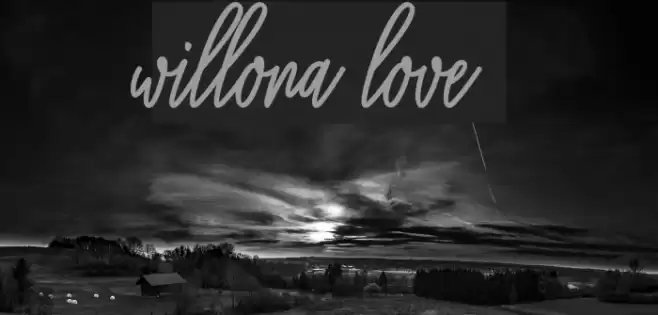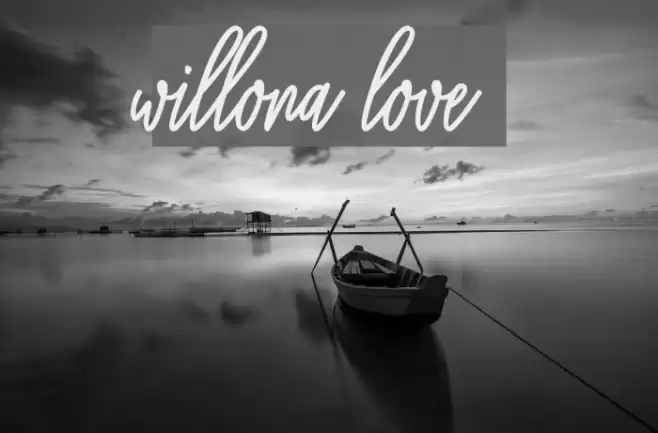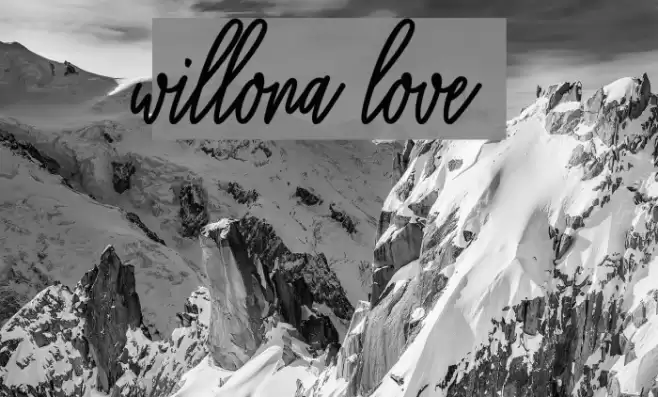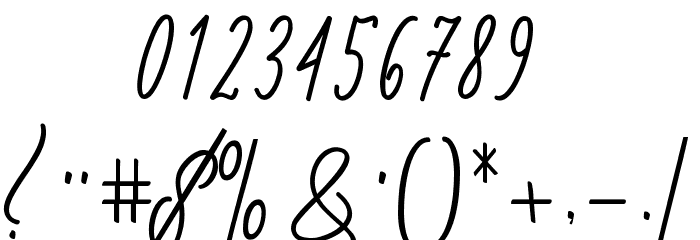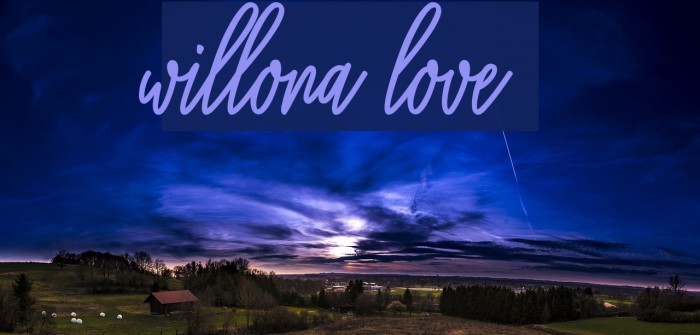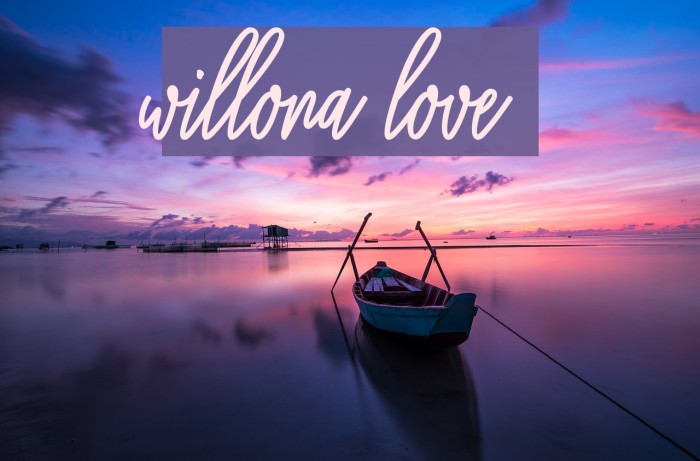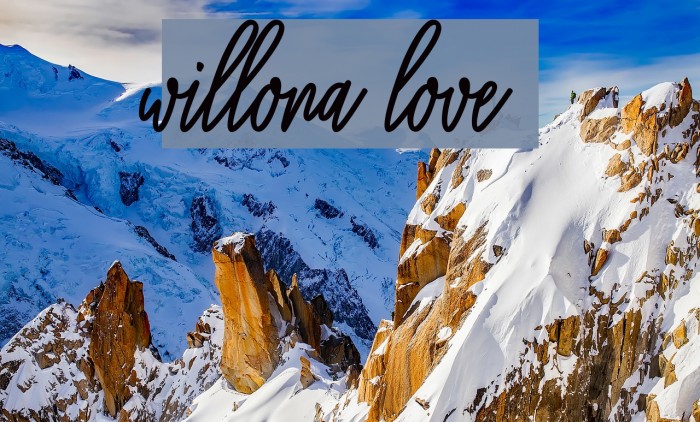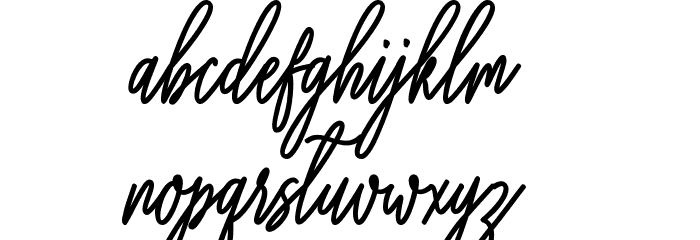
willona love Font
This font features a lively and flowing script style, characterized by its smooth, cursive strokes and elegant loops. The uppercase letters are tall and slightly slanted, giving a sense of movement and grace. The lowercase letters maintain a consistent flow, with some letters connecting seamlessly to the next. Numbers and special characters are designed to complement the overall script style, maintaining the same fluidity and elegance. This font exudes a sense of sophistication and charm, making it suitable for projects that require a personal and artistic touch.
A lively, flowing script font with elegant cursive strokes from Uncategorized fonts.
- Proposed Projects: Ideal for wedding invitations, greeting cards, branding, and logo design.
- Use Case: Logos, Invitations, Decorative text